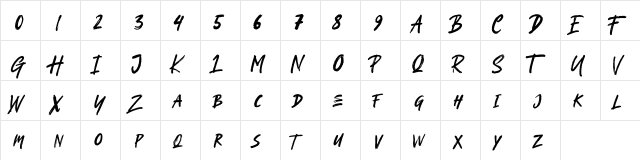
Brightland Regular
| Designer | Weape Studio |
Design Context for Brightland Typeface
Brightland is a composed and adaptable typeface that performs quietly and consistently across a wide range of design contexts.
Pro Tip: Pair Brightland with a font of contrasting weight or personality to build a more expressive typographic hierarchy.